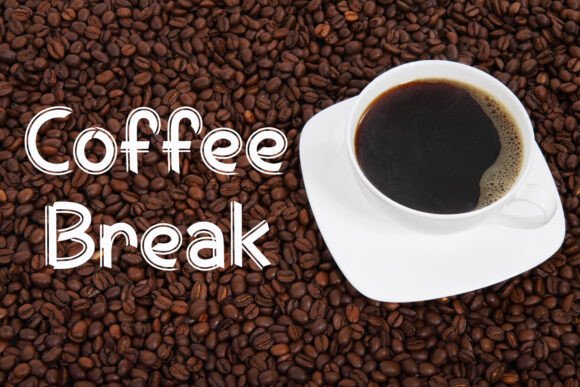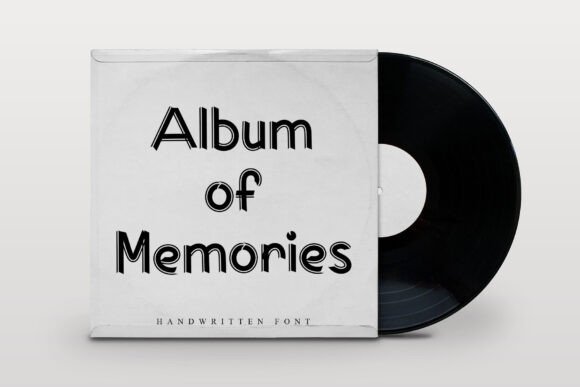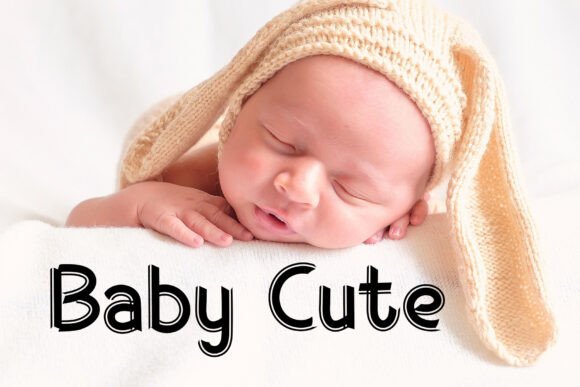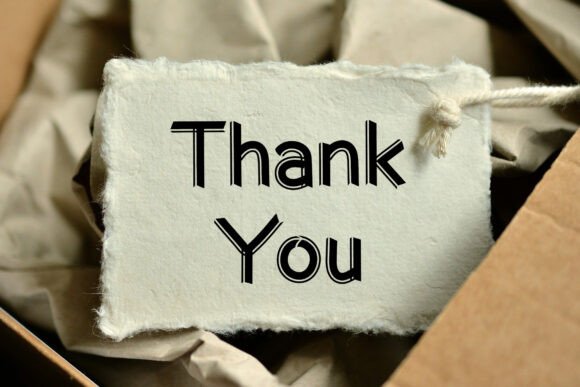
Unlock the Power of Creative Expression with Dodhi Font
Have you ever found yourself stuck in a creative rut, unable to put into words the beautiful ideas swirling in your mind? You’re not alone. Many designers and artists face this challenge, but what if you had the perfect tool to bring your vision to life? Introducing Dodhi Font, a unique and elegant font designed to elevate your projects and make them truly unforgettable.
This beautifully crafted font is perfect for any project, from wedding invitations to birthday cards, and even school assignments. With its professional touch and versatility, Dodhi Font is a valuable asset for designers looking to add a touch of sophistication to their work. Whether you’re a seasoned pro or just starting out, Dodhi Font is the perfect companion to help you bring your creative ideas to life.
Dodhi Font Key Features
- Font Family: Dodhi is a sans-serif font family, designed to provide a clean and modern look for digital and print media.
- Unique Characteristics: Features a unique blend of modern and traditional design elements, making it suitable for a wide range of applications, including corporate branding, advertising, and editorial content.
Dodhi Font Review
As a designer, I was excited to dive into the Dodhi Font and see what it had to offer. Overall, I think it’s a solid addition to any designer’s toolkit, but it’s not without its limitations.
- The Dodhi Font has a unique and stylish aesthetic that’s perfect for creative projects. It’s particularly well-suited for use in titles and headings.
- The font is highly legible, even at smaller font sizes, which makes it a great choice for body text.
- The font family includes a range of weights and styles, giving designers plenty of options for customizing their look.
- The Dodhi Font may not be the best choice for projects that require a more formal or traditional look. Its unique style may not be suitable for all audiences.
- The font’s high contrast between light and dark areas can make it difficult to read in certain lighting conditions.
While the Dodhi Font has some limitations, I think it’s a great addition to any designer’s toolkit. Its unique style and high legibility make it perfect for creative projects, and its range of weights and styles give designers plenty of options for customization.
The Dodhi Font is ideal for:
- Creating elegant and sophisticated designs.
- Adding a touch of sophistication to invitations and greeting cards.
- Designing logos and branding materials.
To get the most out of the Dodhi Font, try the following:
- Pair it with bold and simple designs for maximum impact.
- Use it in conjunction with other elegant fonts to create a sophisticated look.
Alternatives to Dodhi Font
Playfair Display is a luxurious and elegant serif font. It is perfect for use in headings, titles, and other design elements where you want to add a touch of sophistication. It has a similar feel to Dodhi Font but with a more refined and classic look. Playfair Display is ideal for high-end branding, fashion, and luxury goods.
Great Vibes is a beautiful and modern script font. It is great for use in titles, headings, and other design elements where you want to add a sense of elegance and sophistication. While it has a different feel to Dodhi Font, Great Vibes shares a similar level of sophistication and can be used in similar contexts, such as branding, advertising, and packaging design.
What is the character set of Dodhi Font?
The Dodhi Font includes a comprehensive character set that covers a wide range of languages, including Latin, Cyrillic, and Devanagari scripts. It also includes various symbols, punctuation marks, and digits.